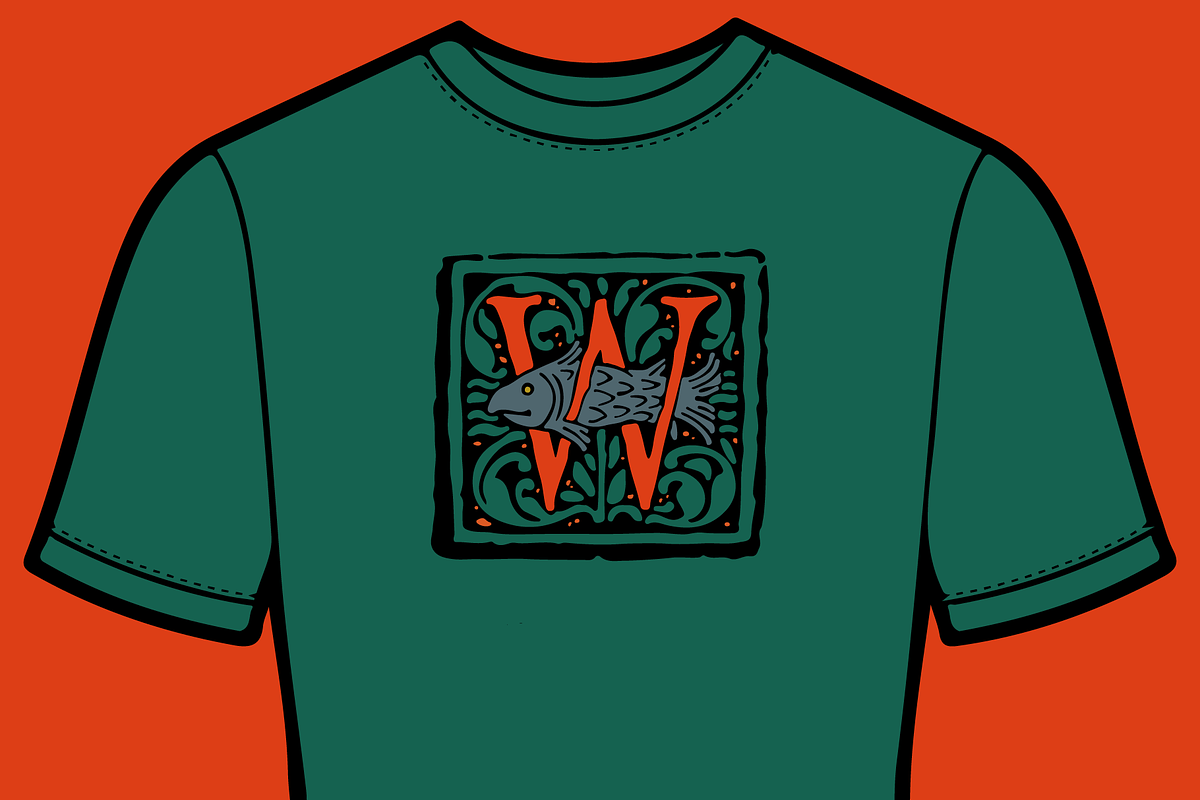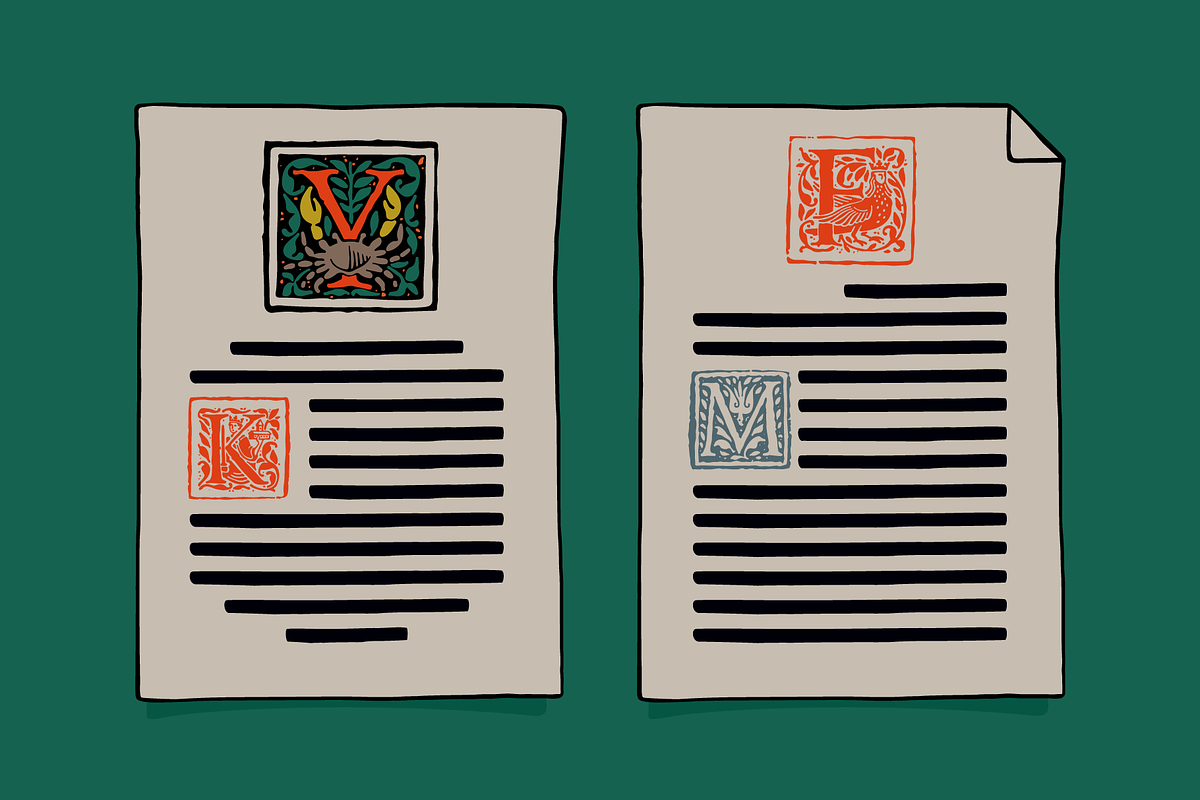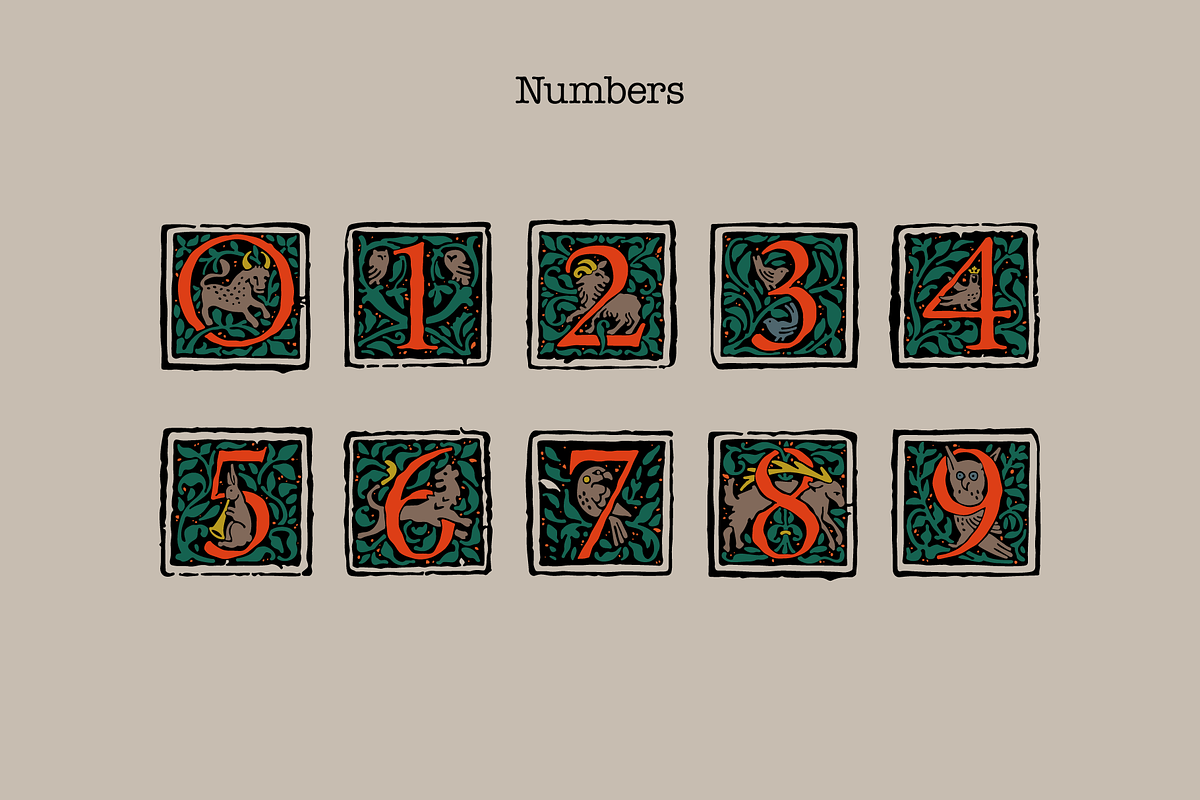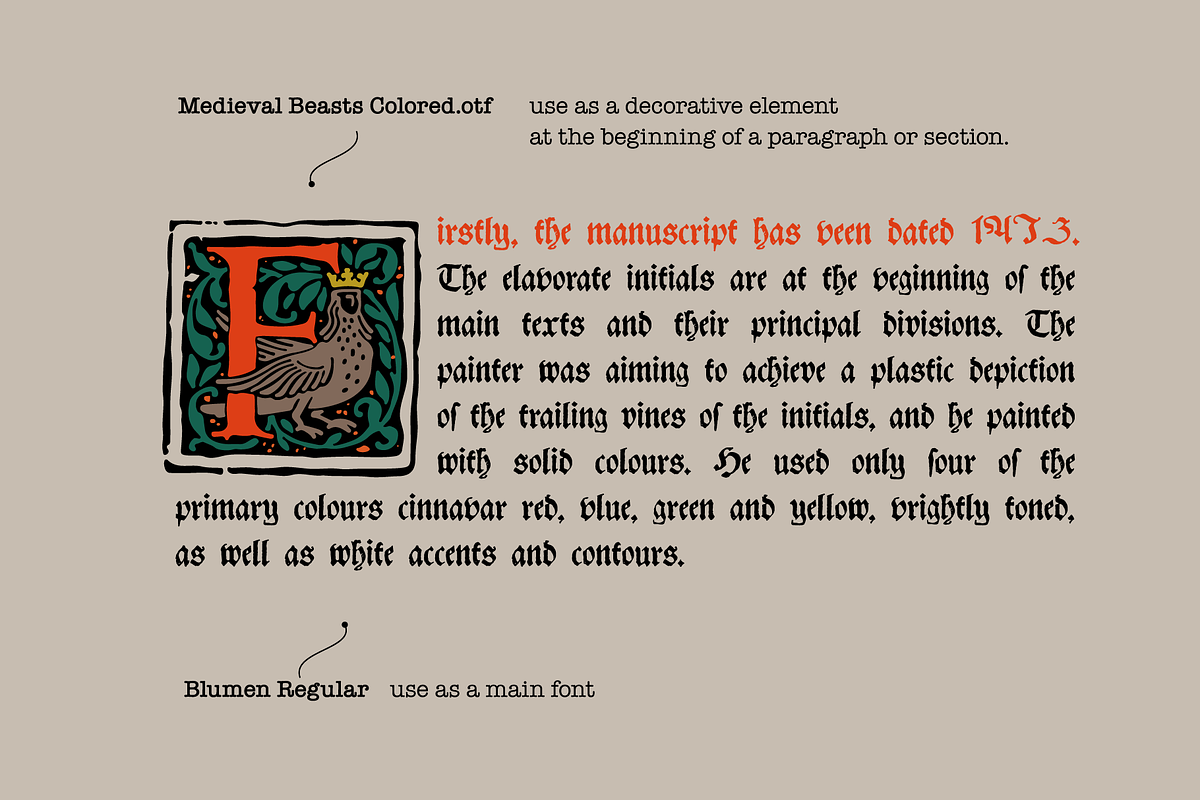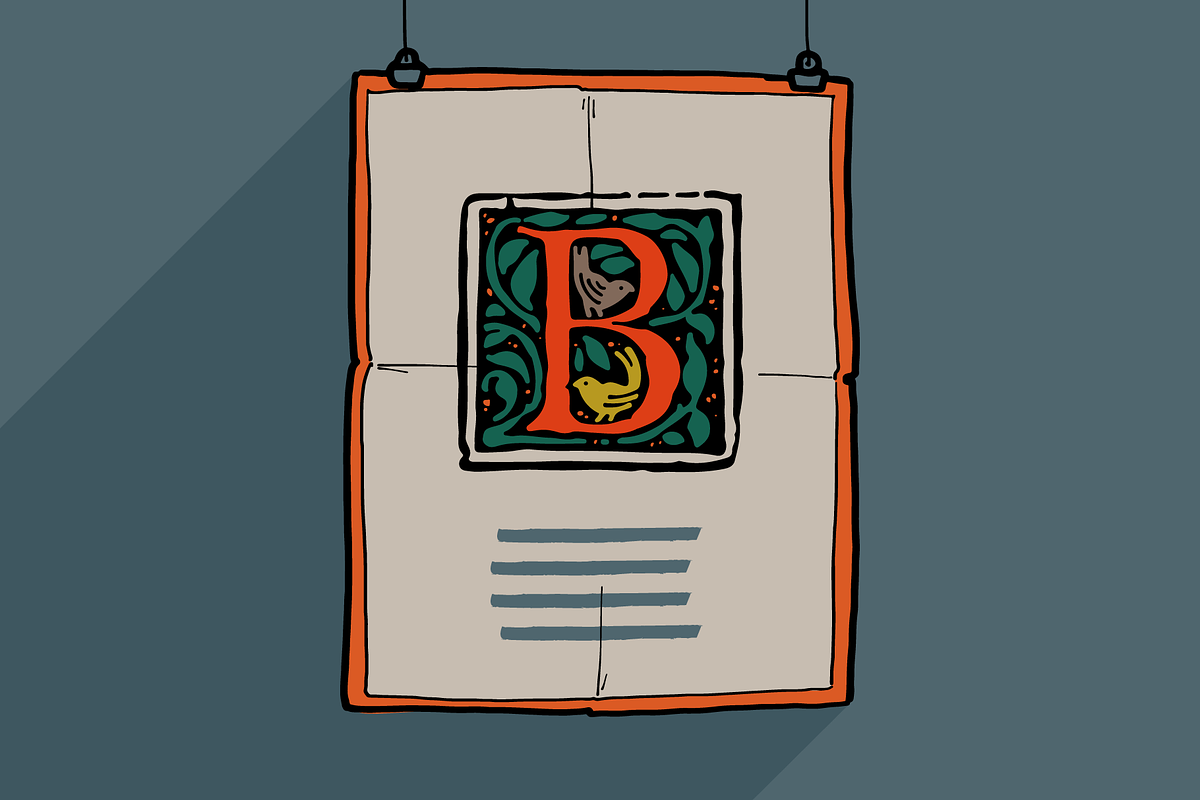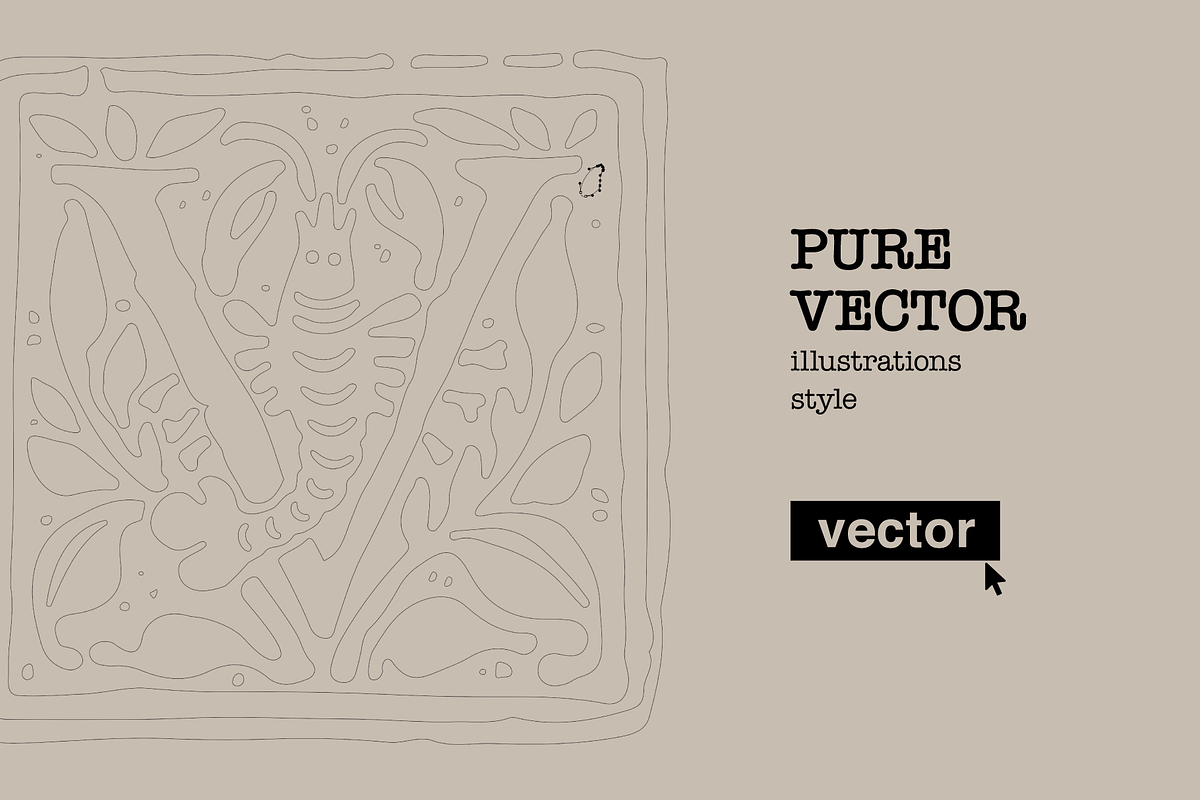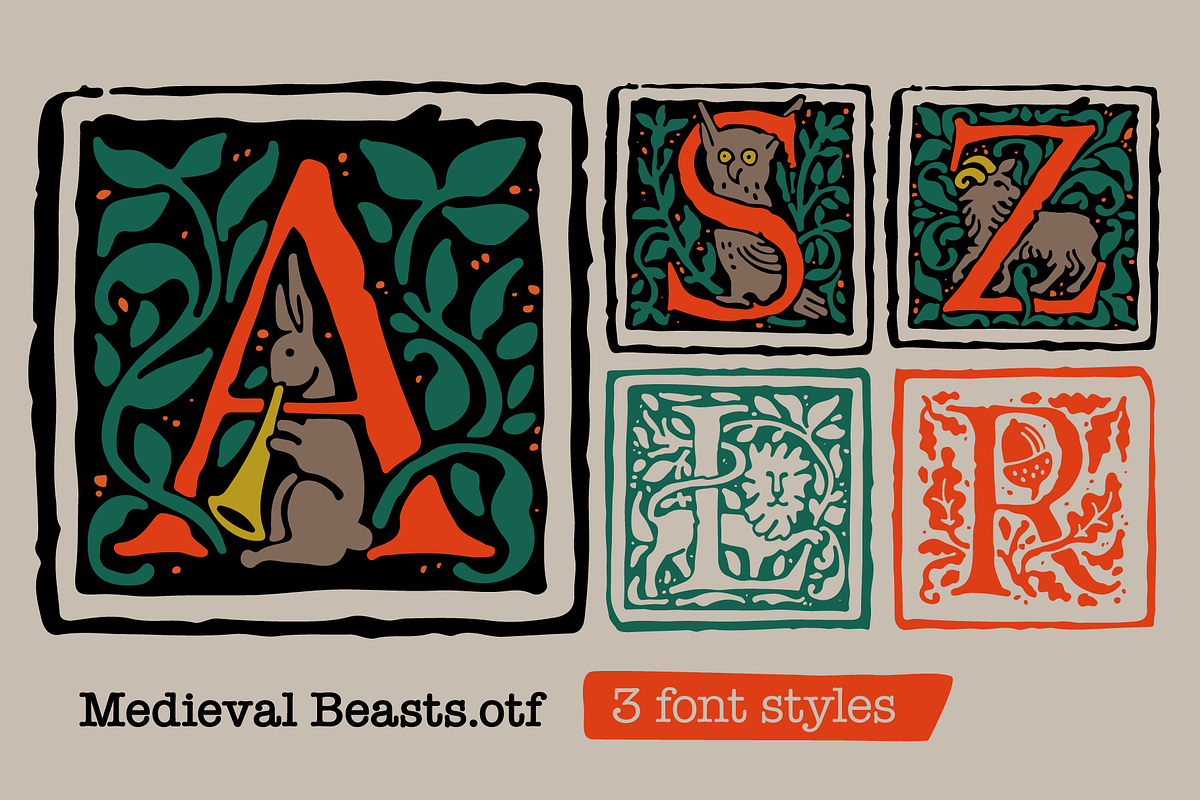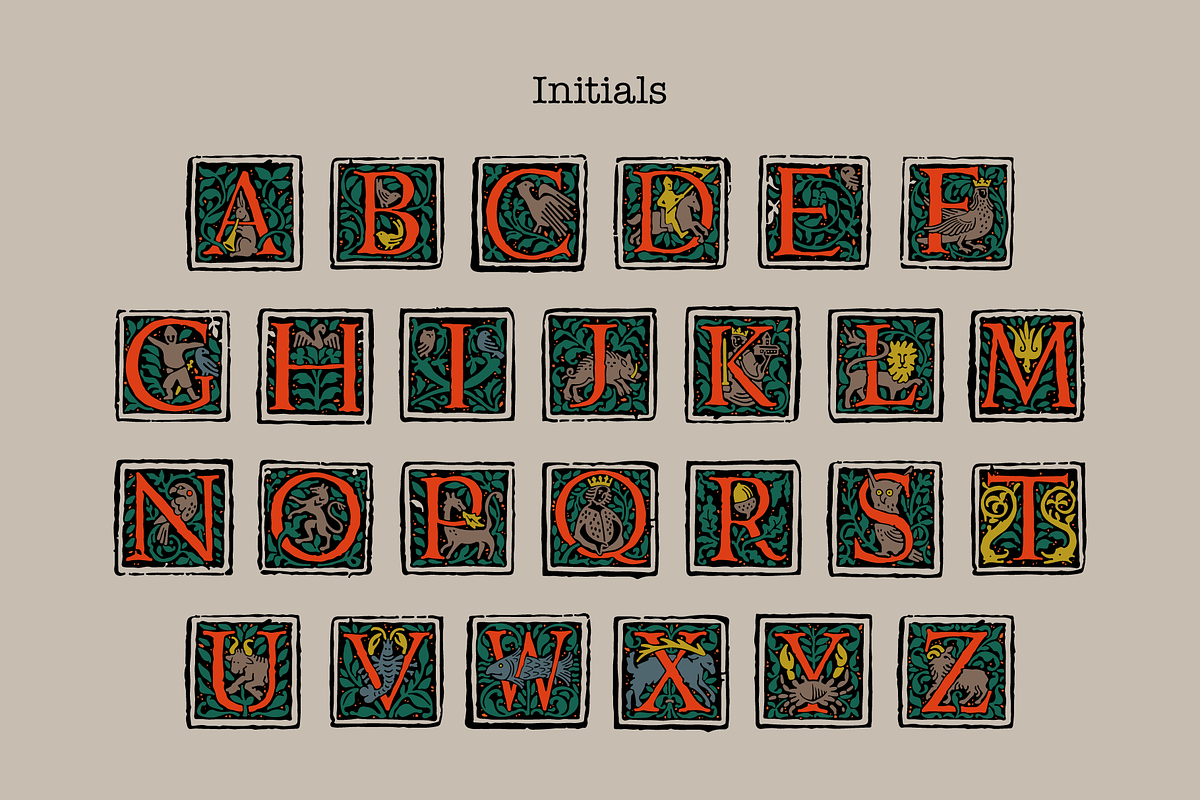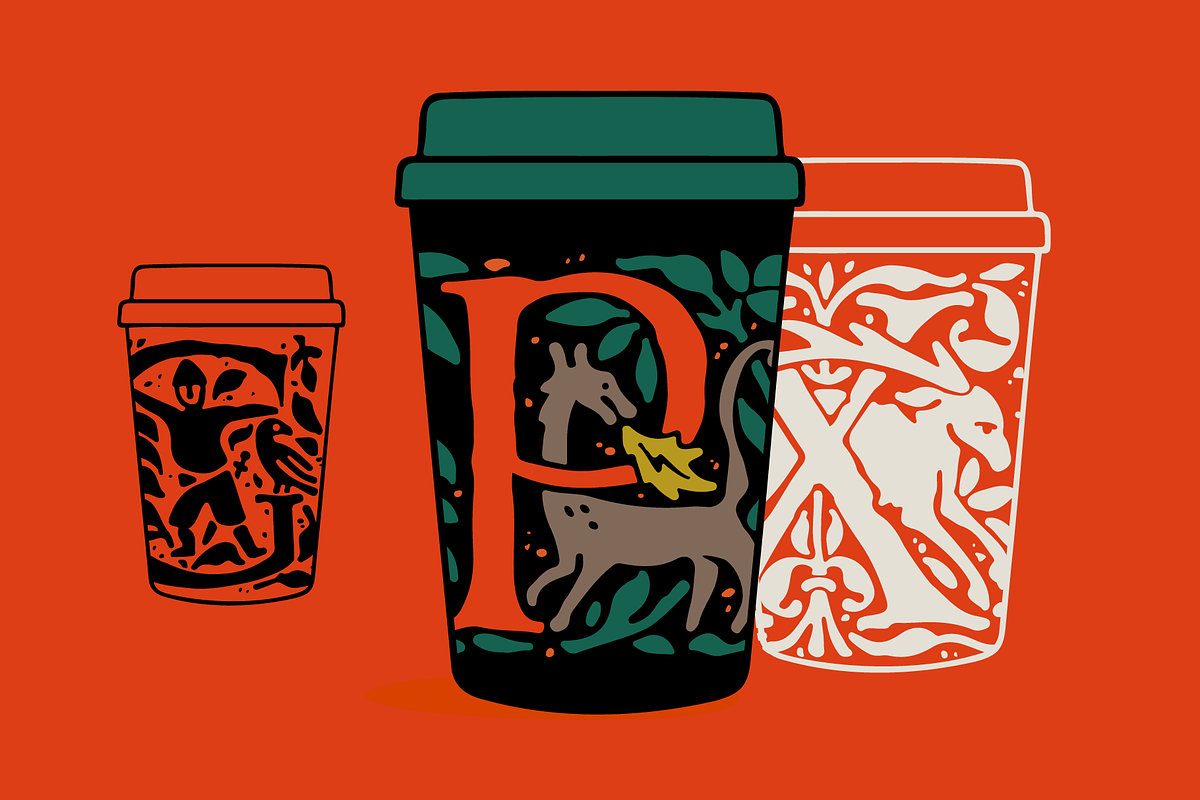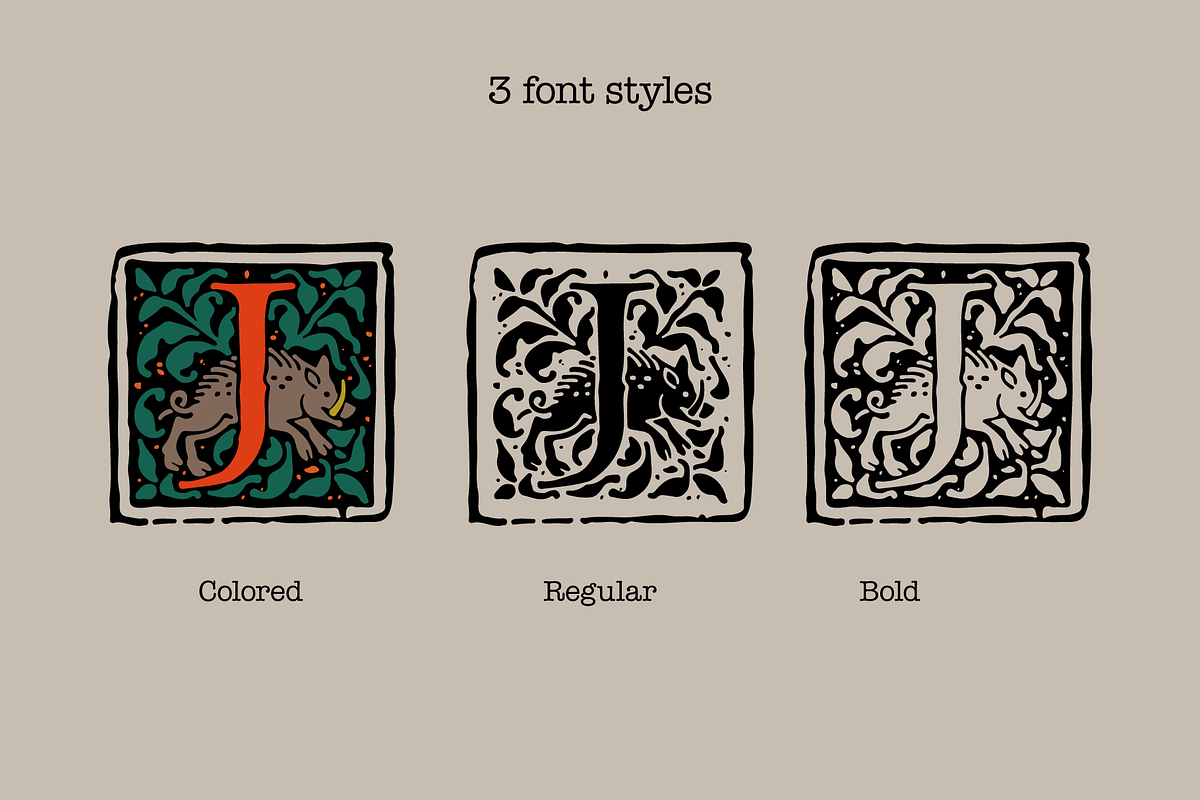
Medieval Beasts Initials
These decorative initials were inspired by Lenten Sermons by Johannes de Aquila, published in 1497 in the ancient Italian city of Brescia by the Dominican Order of Preachers. The richly illustrated medieval manuscript and its ornate illuminated letters became the foundation for this typeface.
The Beasts Drop Caps font family includes Regular, Bold, and Colored styles. It is perfect for recreating the authentic look of medieval manuscripts, illuminated books, fantasy projects, book covers, certificates, and historical designs. Use these decorative initials at the beginning of a paragraph or chapter, combined with your favorite blackletter or Gothic typeface for the main text.